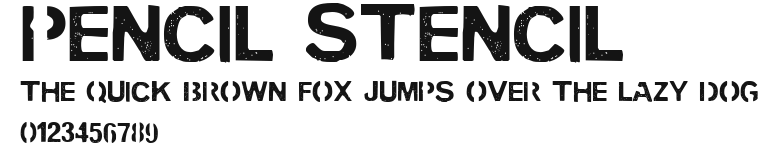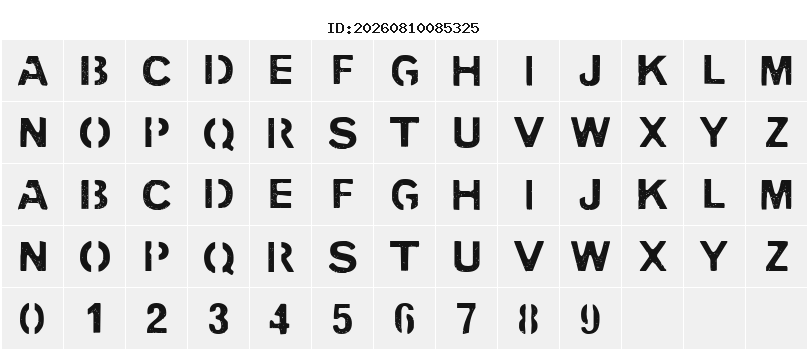
• Font Name: PENCIL STENCIL
• Full Font Name: PENCIL STENCIL
• Designer: SpideRaY
• Manufacturer: SpideRaY
About PENCIL STENCIL.ttf
PENCIL STENCIL.ttf is a modern, elegant sans-serif font designed for ultimate readability and visual harmony. Perfect for branding, headlines, web design, and print materials.